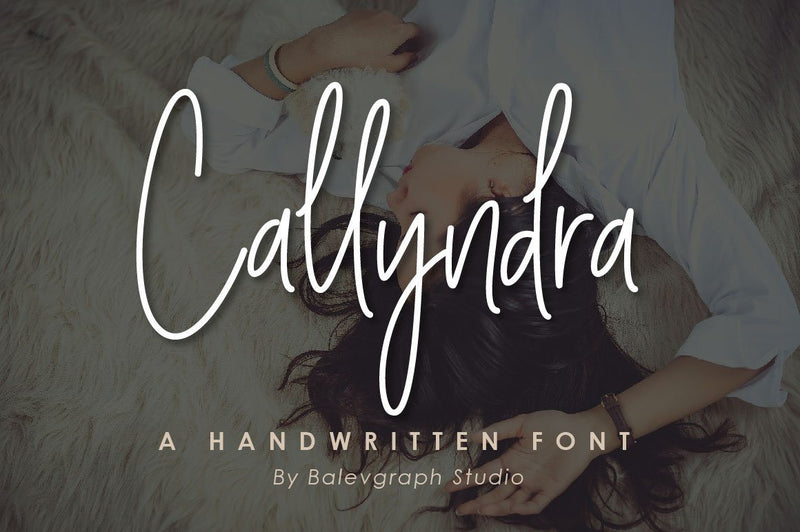
Callyndra Handwritten Script Font
Callyndra is a thin lettered, natural and fashionable script font. Dainty and joyful, this font will be ideal for writing wedding invitations, cards or any other design that may need a romantic, personalized touch!
- Uppercase, Lowercase, Numerals & Punctuations
- Ligature & Alternate